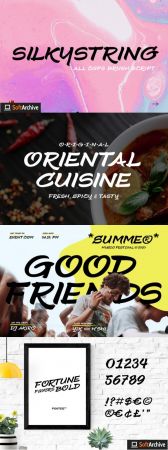
DesignOptimal - Silkystring Font
DesignOptimal.com - Silkystring Font
Silkystring results out of a stunning pairing of a brush pen and pencil that makes it look incredibly endearing and authentic. Use this gorgeous and unique handwritten font to bring any DIY project to life!